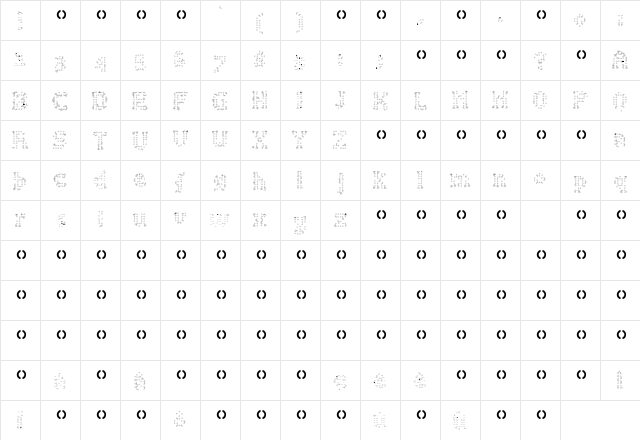
3BubbleBath has an approachable, lighthearted character - its loose, expressive forms are well-suited to children's content, casual branding, and fun-first design.
Font Pairing: Pairs well with a rounded or humanist sans for body copy, maintaining the friendly tone without relying on 3BubbleBath to carry extended reading.
Pro Tip: Use 3BubbleBath at larger display sizes where its expressive character can land. Pair with a clean, simple sans for body copy to maintain readability.